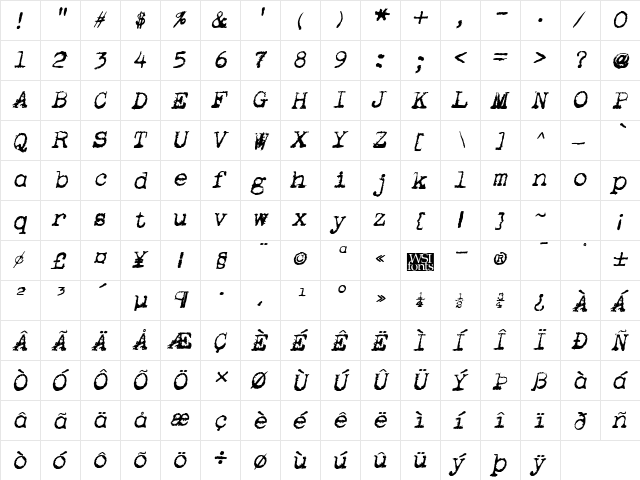
Apoplex BoldItalic
Design Context for Apoplex Typeface
Apoplex is a composed and adaptable typeface that performs quietly and consistently across a wide range of design contexts. The slanted form adds forward momentum and visual energy. The heavy weight commands attention and anchors typographic hierarchies.